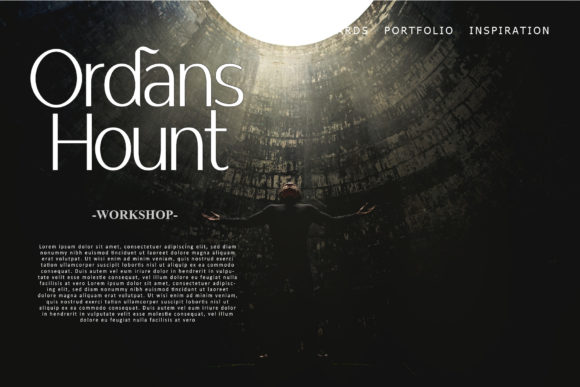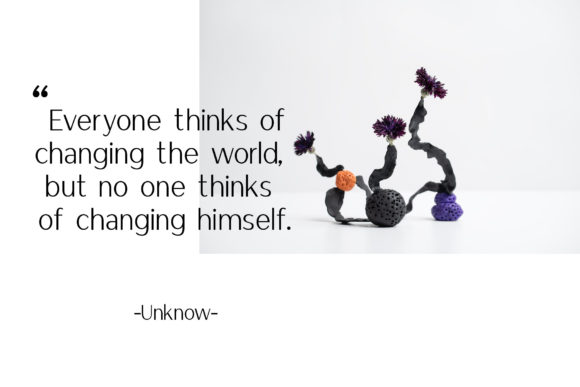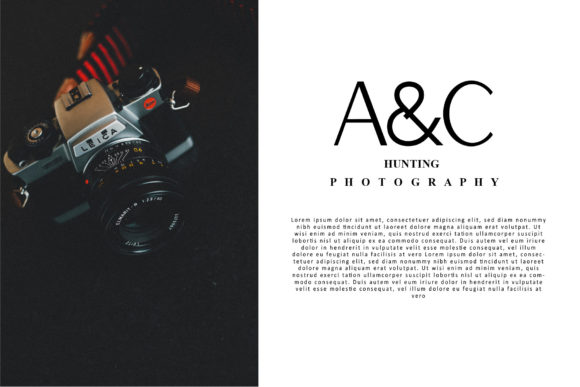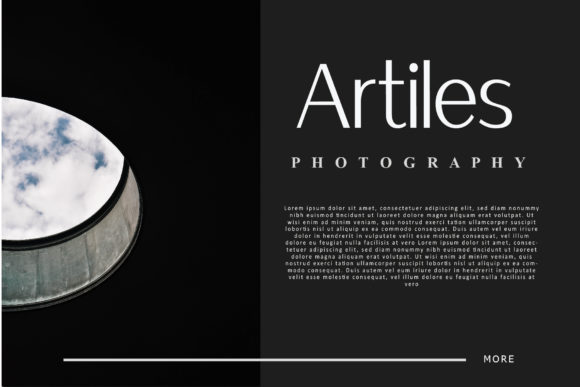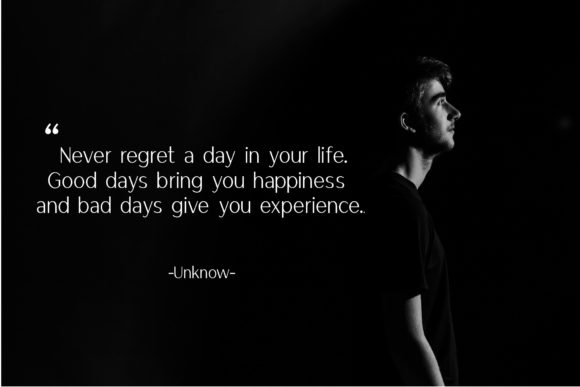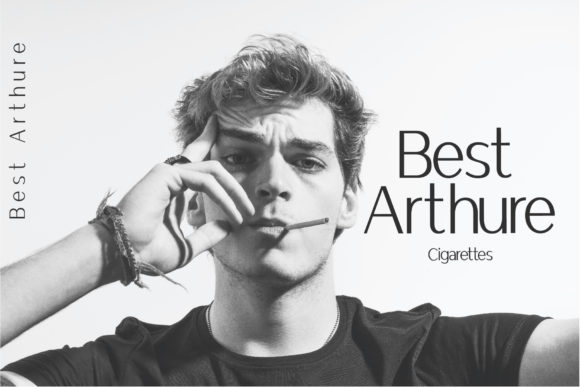
Introduction to Amirald Font
Proudly present Amirald, a very clean sans serif font.
It’s perfect for branding, product packaging, invitations, quotes, t-shirts, labels, posters, or any logo you want to develop Make all your design projects more attractive and take your designs to the next level with Amirald.
Key Features of Amirald Font
Why Choose Amirald Font?
Amirald Font offers exceptional quality and versatility, making it a valuable addition to your design toolkit. Whether you’re creating for personal projects or commercial use, Amirald Font delivers professional results.